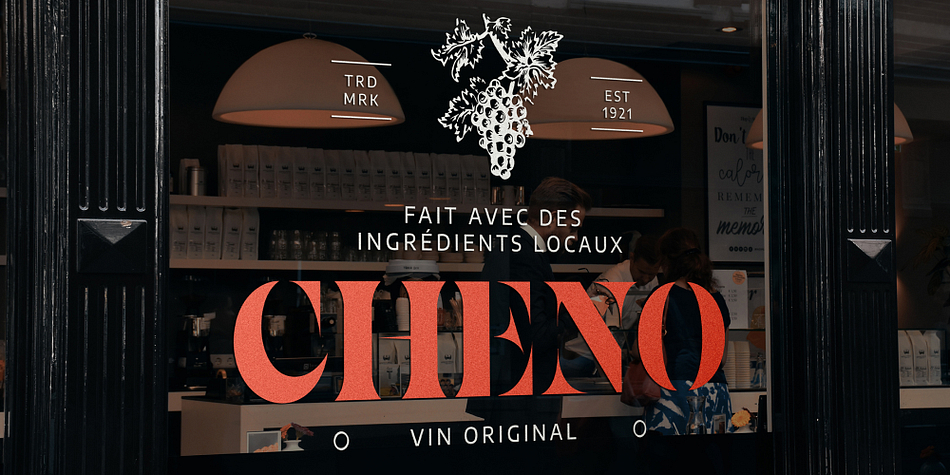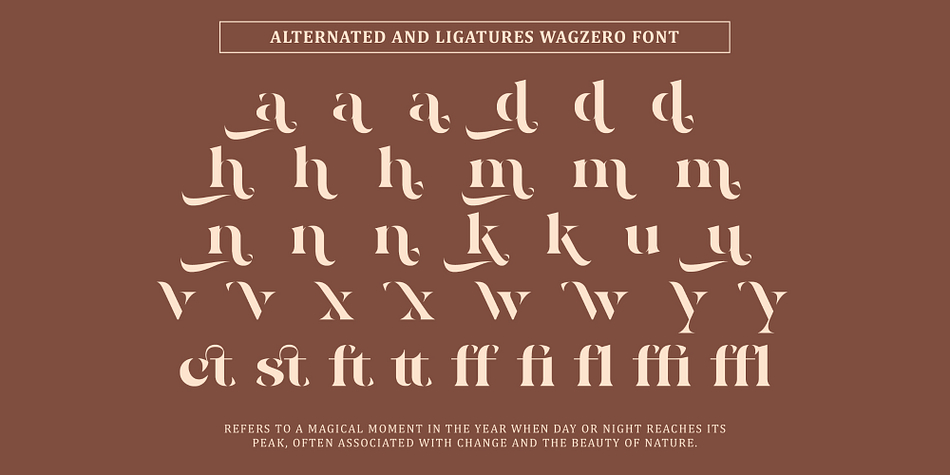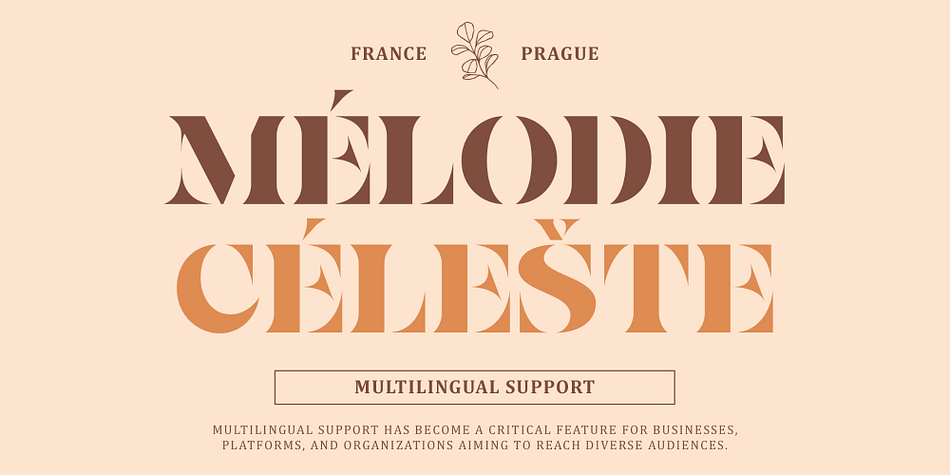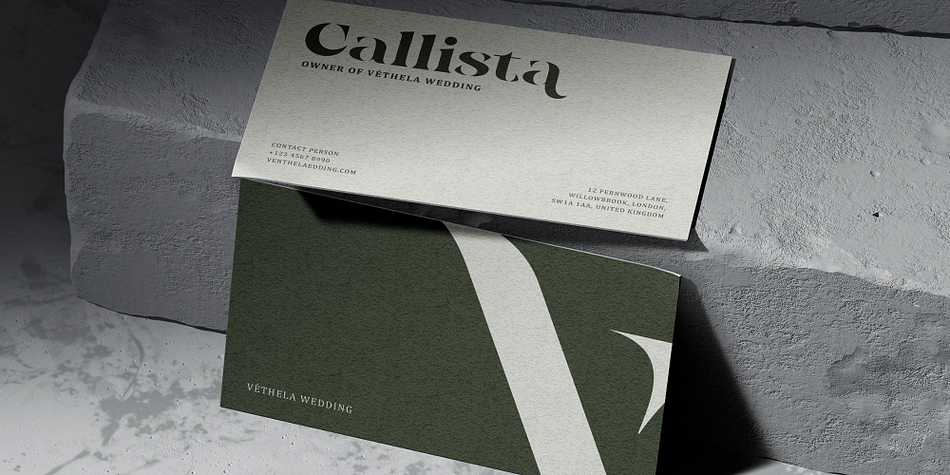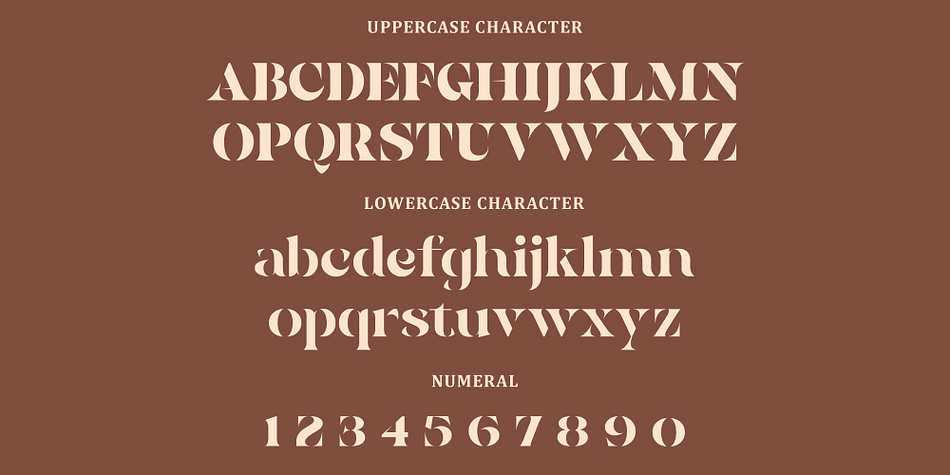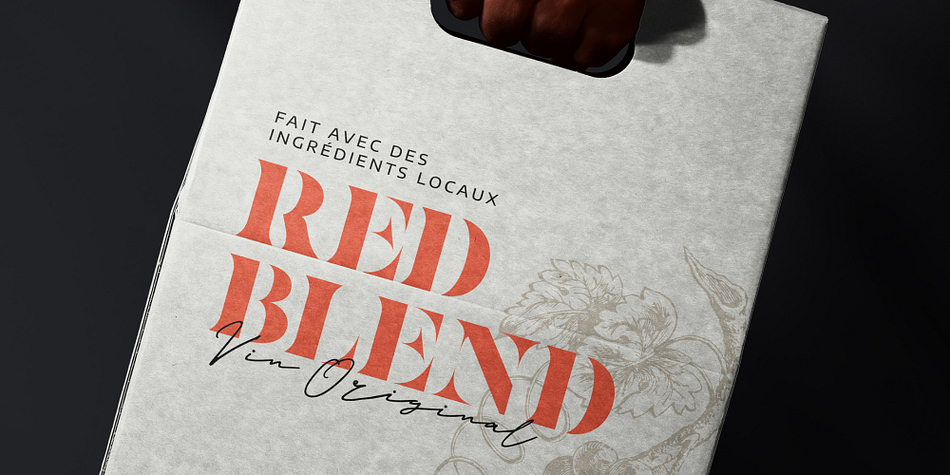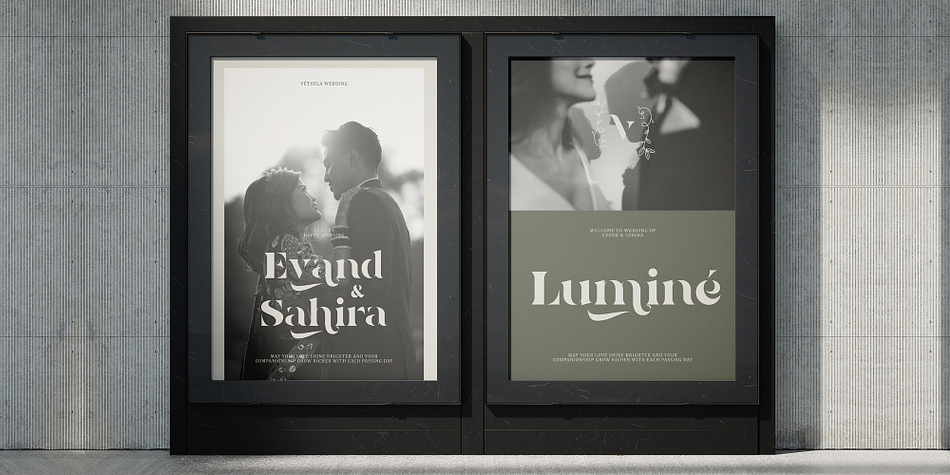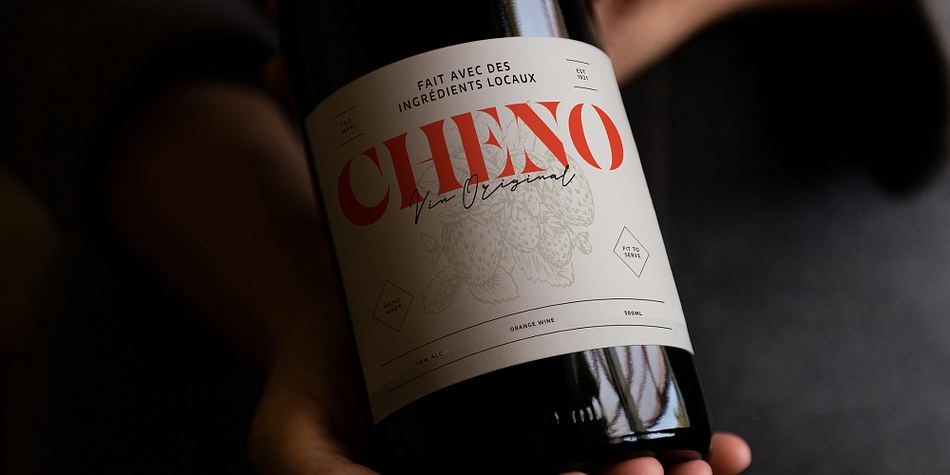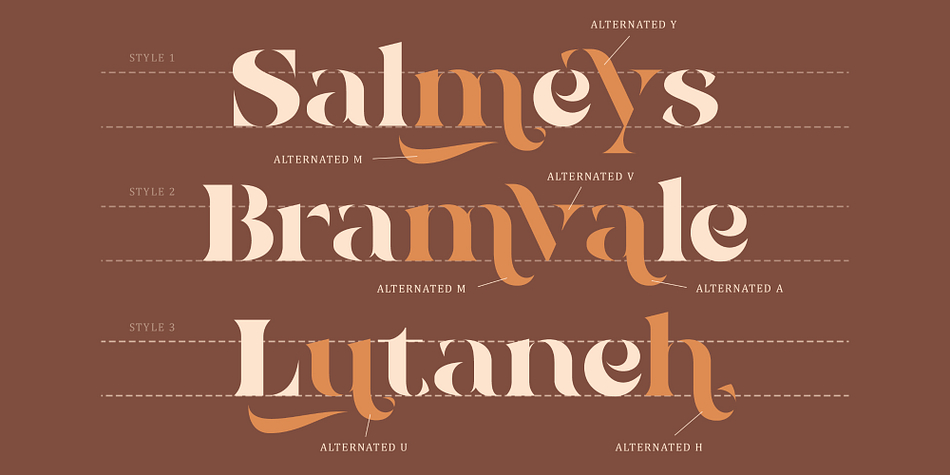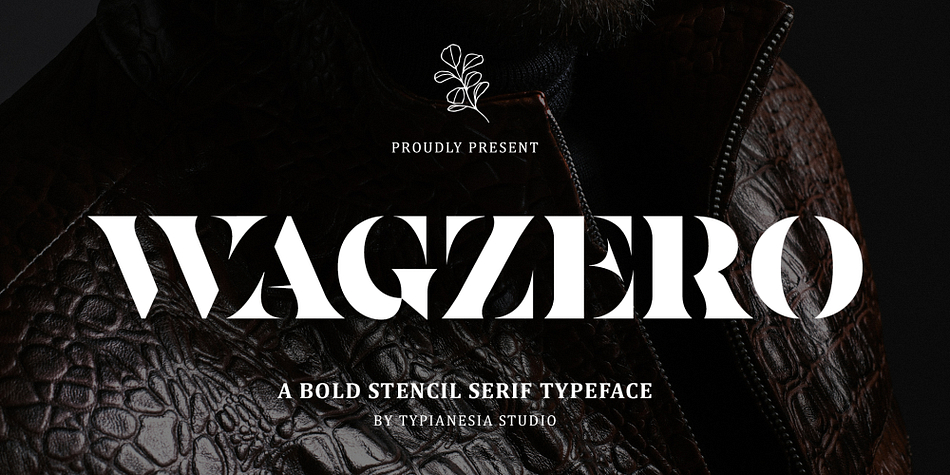
Wagzero
Wagzero is a stencil font family published by Typia Nesia.
Wagzero - Bold Stencil Serif - Modern Classic Elegance Luxury Display Font.
Wagzero is a bold stencil serif font that combines modern with a touch of luxurious elegance. Its unique cut-through elements and thick strokes create a powerful contrast, Perfect for logos, fashion branding, editorial layouts, packaging, posters, magazines, headlines, weddings, high-end product design, and everything that calls for a touch of bold elegance and class. Comes with a complete set of uppercase and lowercase letters, numerals, punctuation, ligatures, stylistic alternates, and multilingual support. Created with professional designers in mind, Wagzero is a go-to typeface for luxury branding, modern editorial design, and standout visual communication. Its timeless appeal and bold aesthetic make it an essential asset in any premium design toolkit.